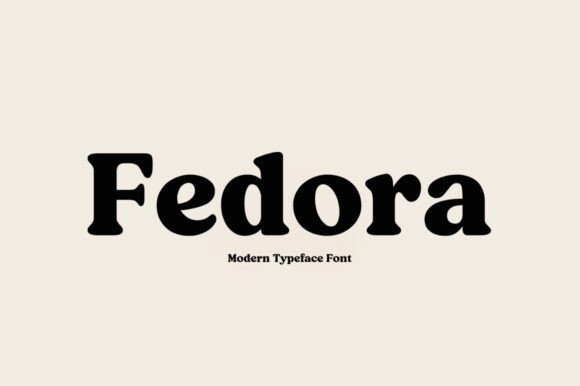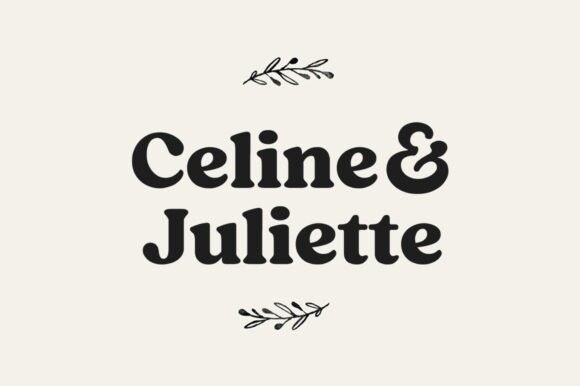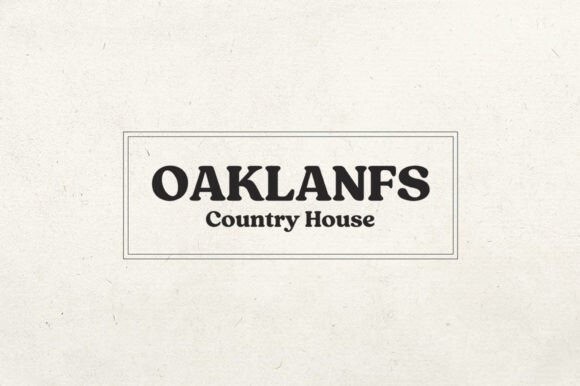
Fedora Font
Fedora Font is a tall and elegant serif font. It will elevate a wide range of crafting ideas, from cards, to branding, labels and much more.